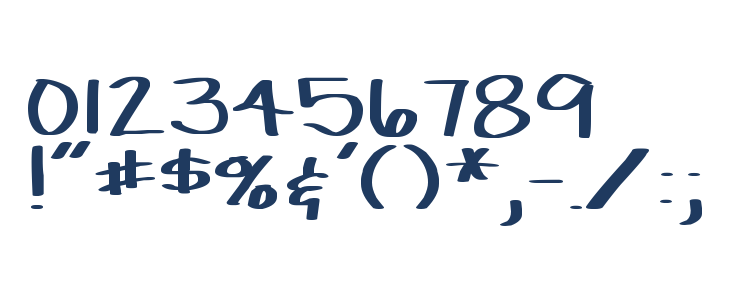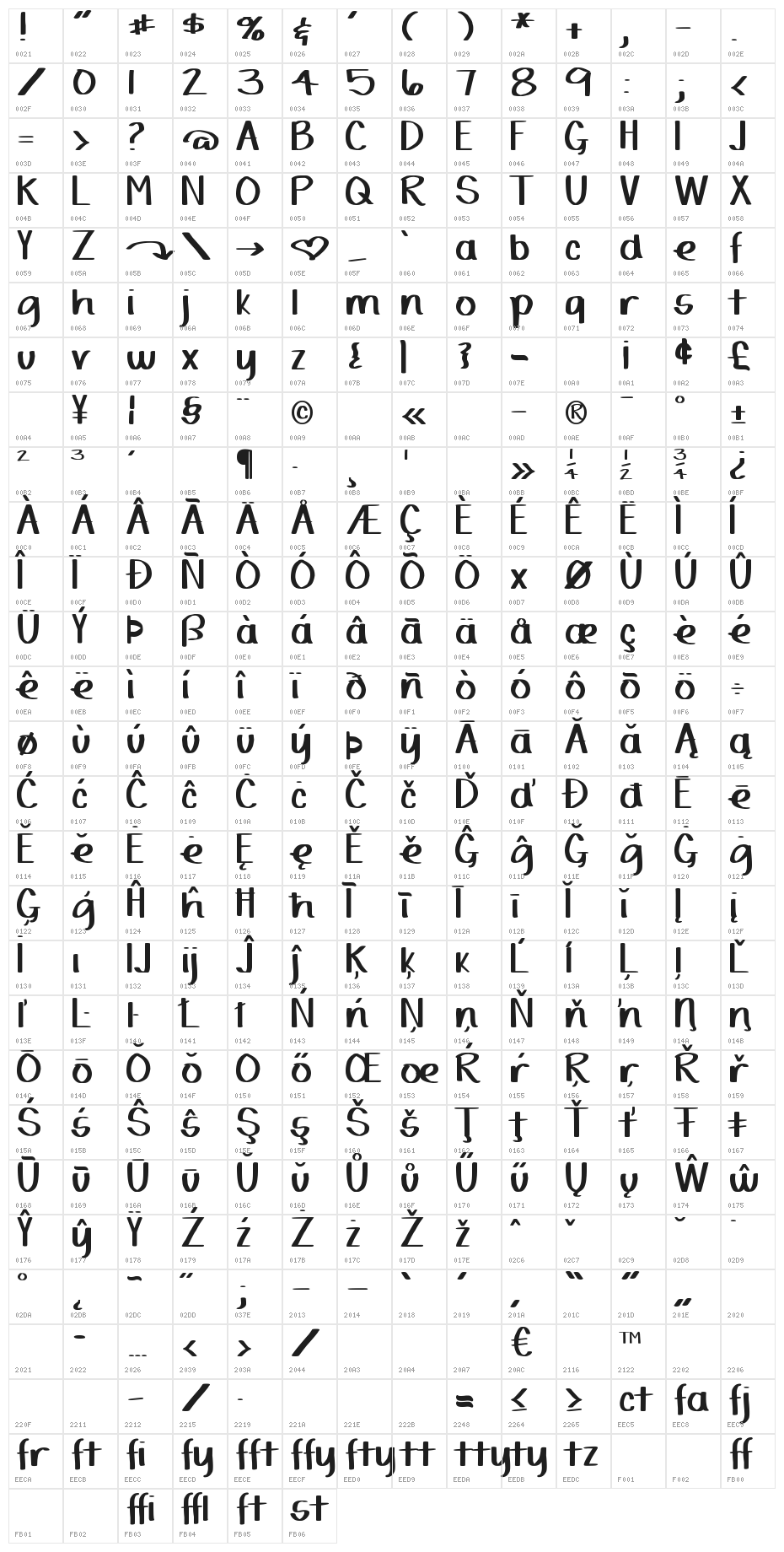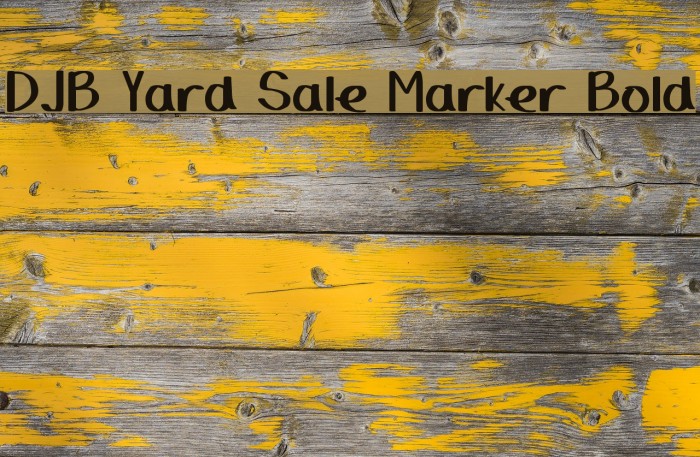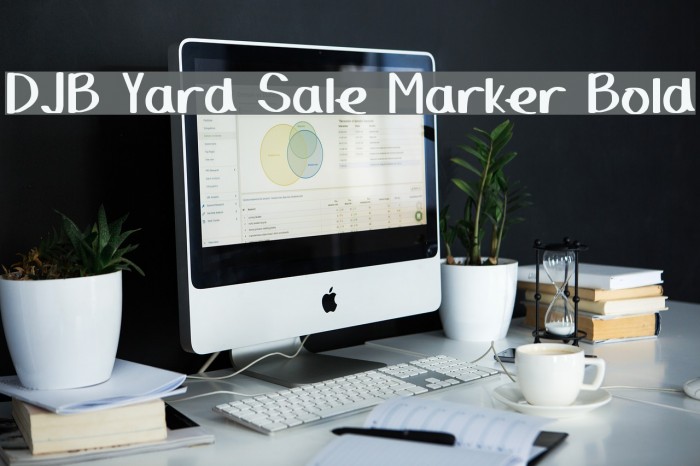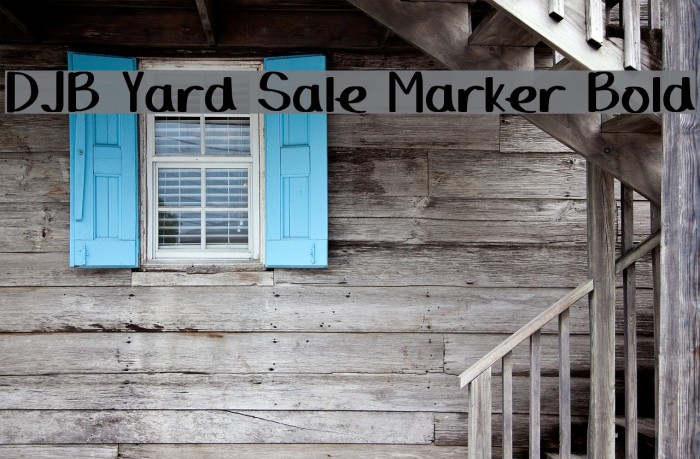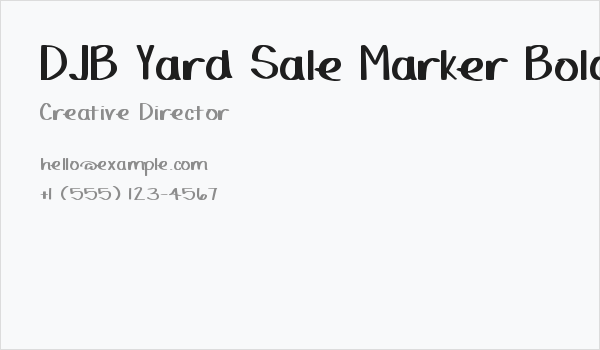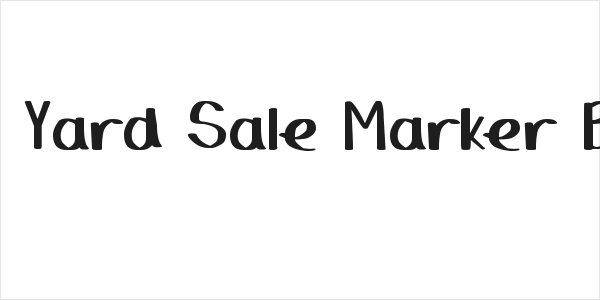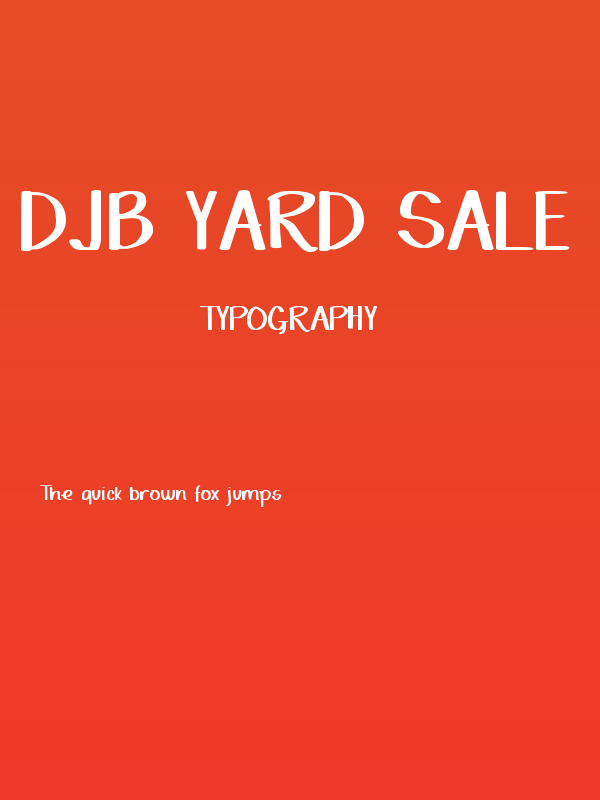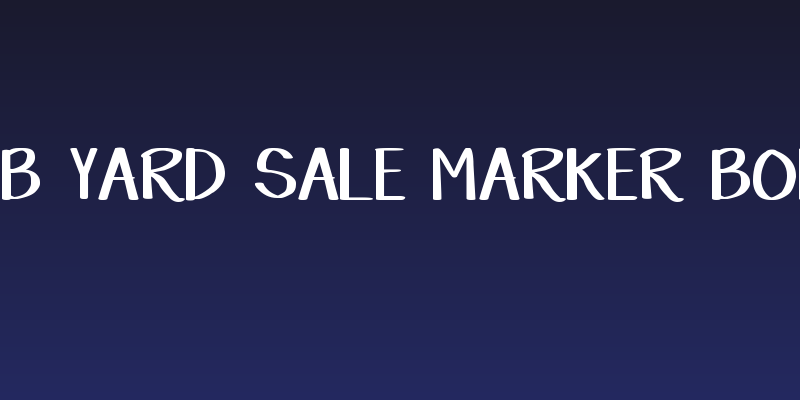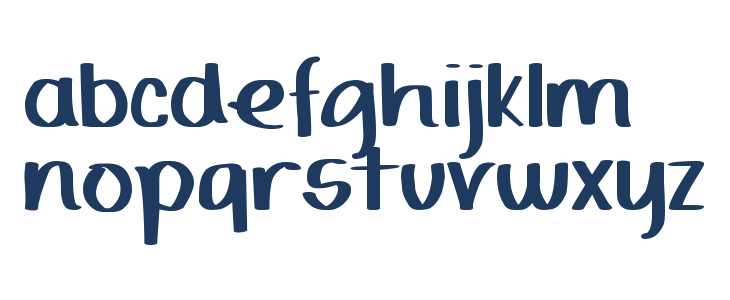
DJB Yard Sale Marker Bold Font
DJB Yard Sale Marker Bold Description
This font features a playful and casual handwritten style, reminiscent of marker pen writing. The characters are bold and slightly irregular, giving them a lively and informal appearance. The uppercase letters are tall and slightly narrow, while the lowercase letters have a more rounded and flowing form. The numbers and special characters maintain the same playful aesthetic, making the font versatile for various creative applications. The overall look is approachable and friendly, suitable for projects that require a personal touch.
| Use Case | Headlines, Posters, Informal Text |
| Proposed Projects | Ideal for children's books, casual invitations, posters, and DIY projects. |